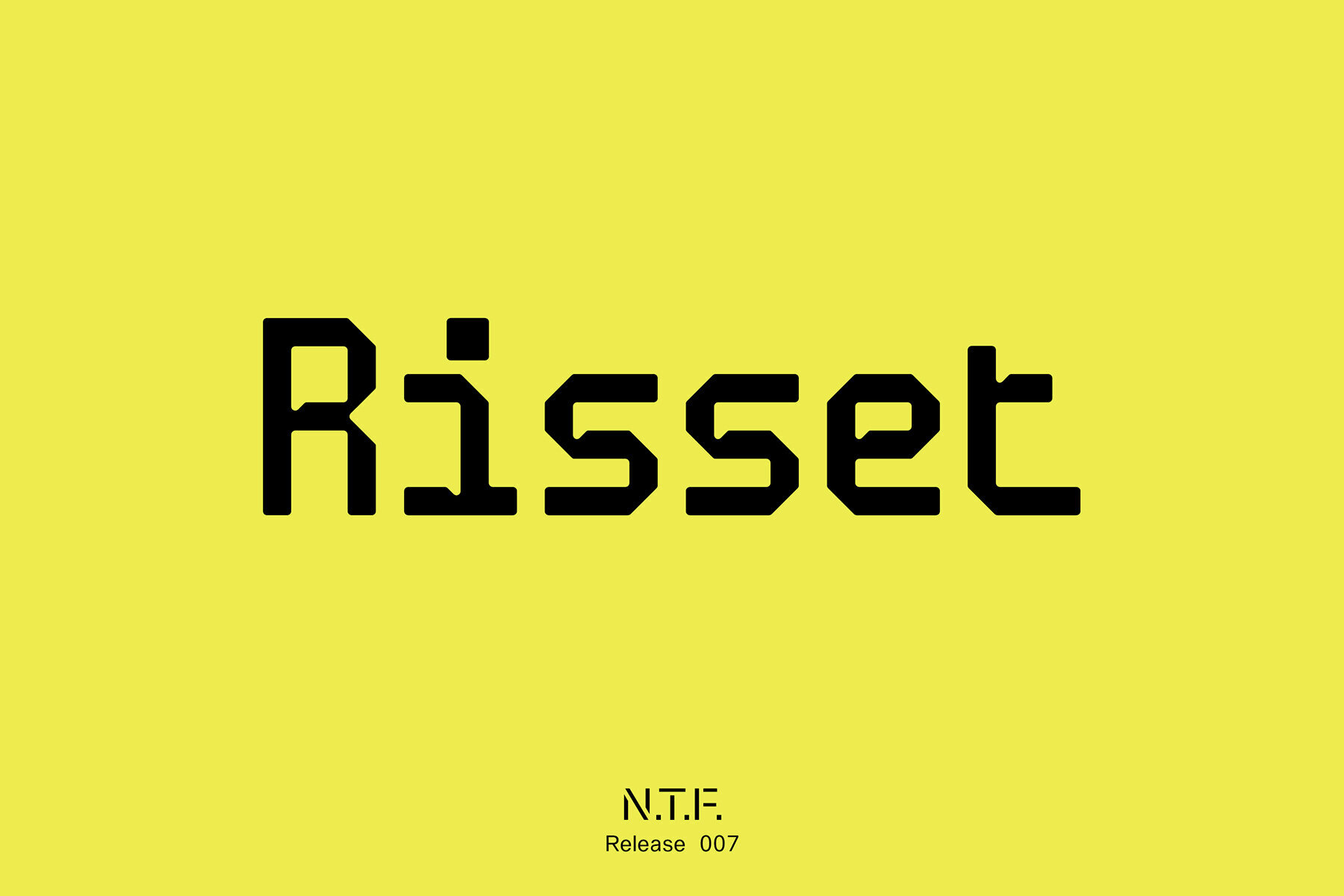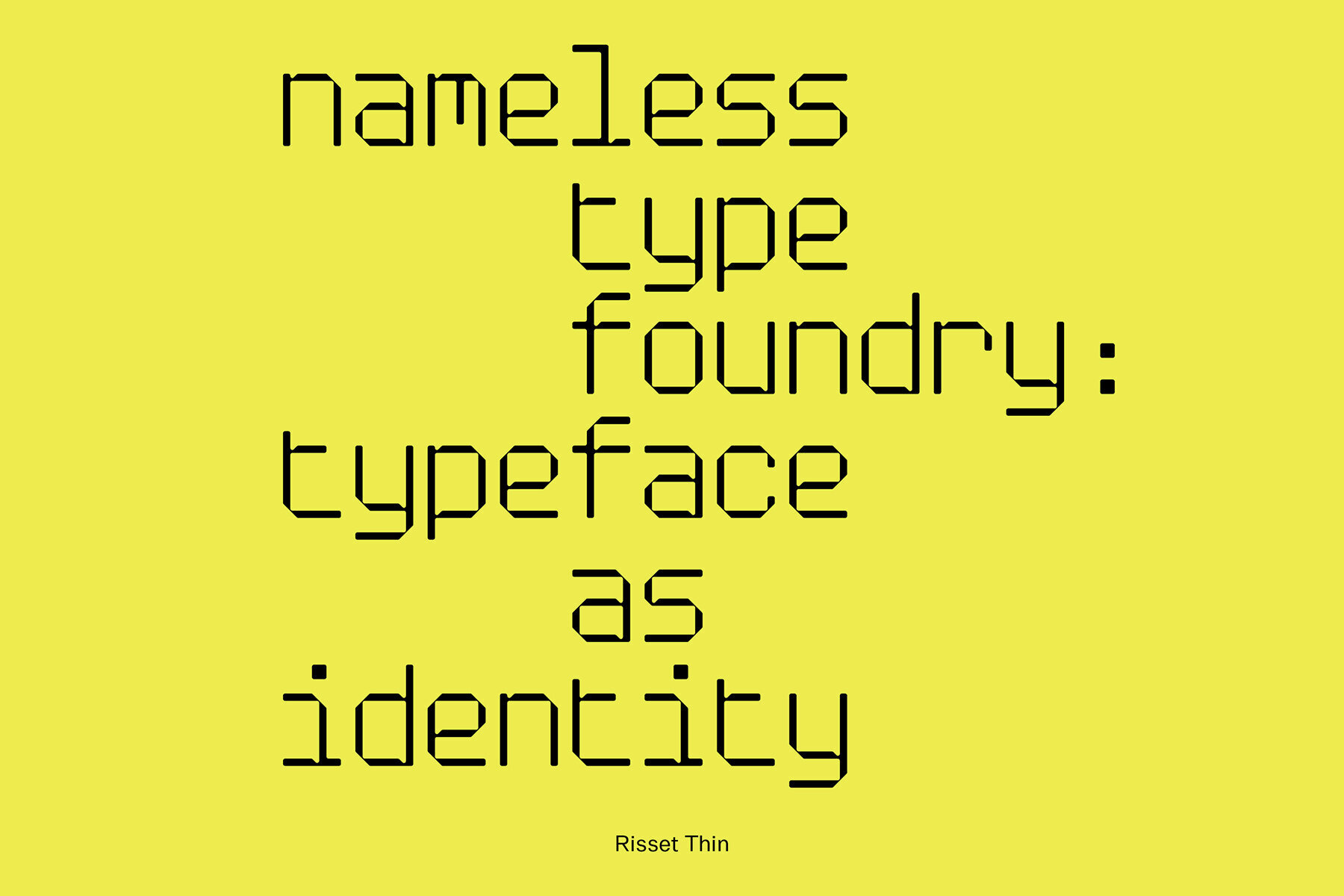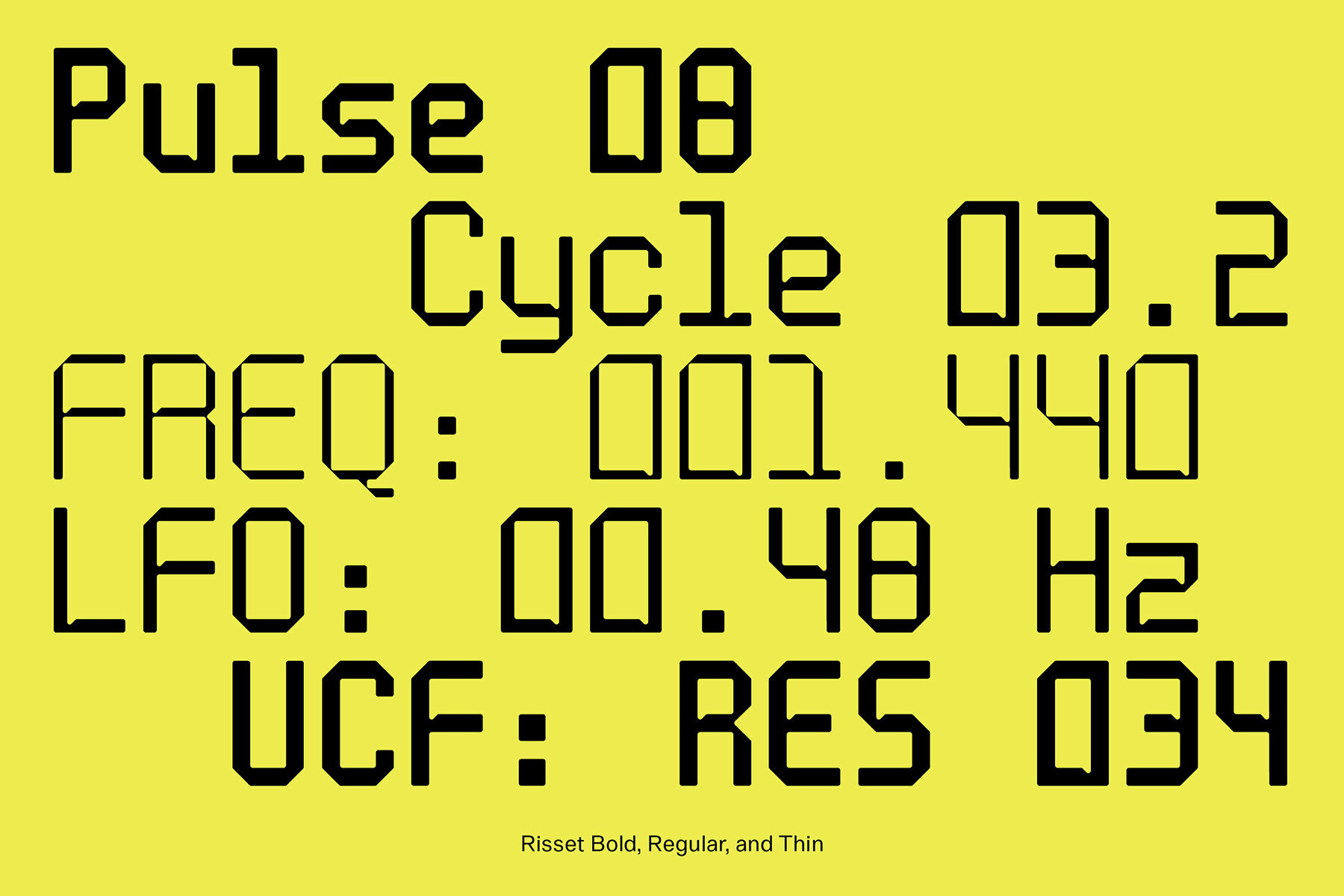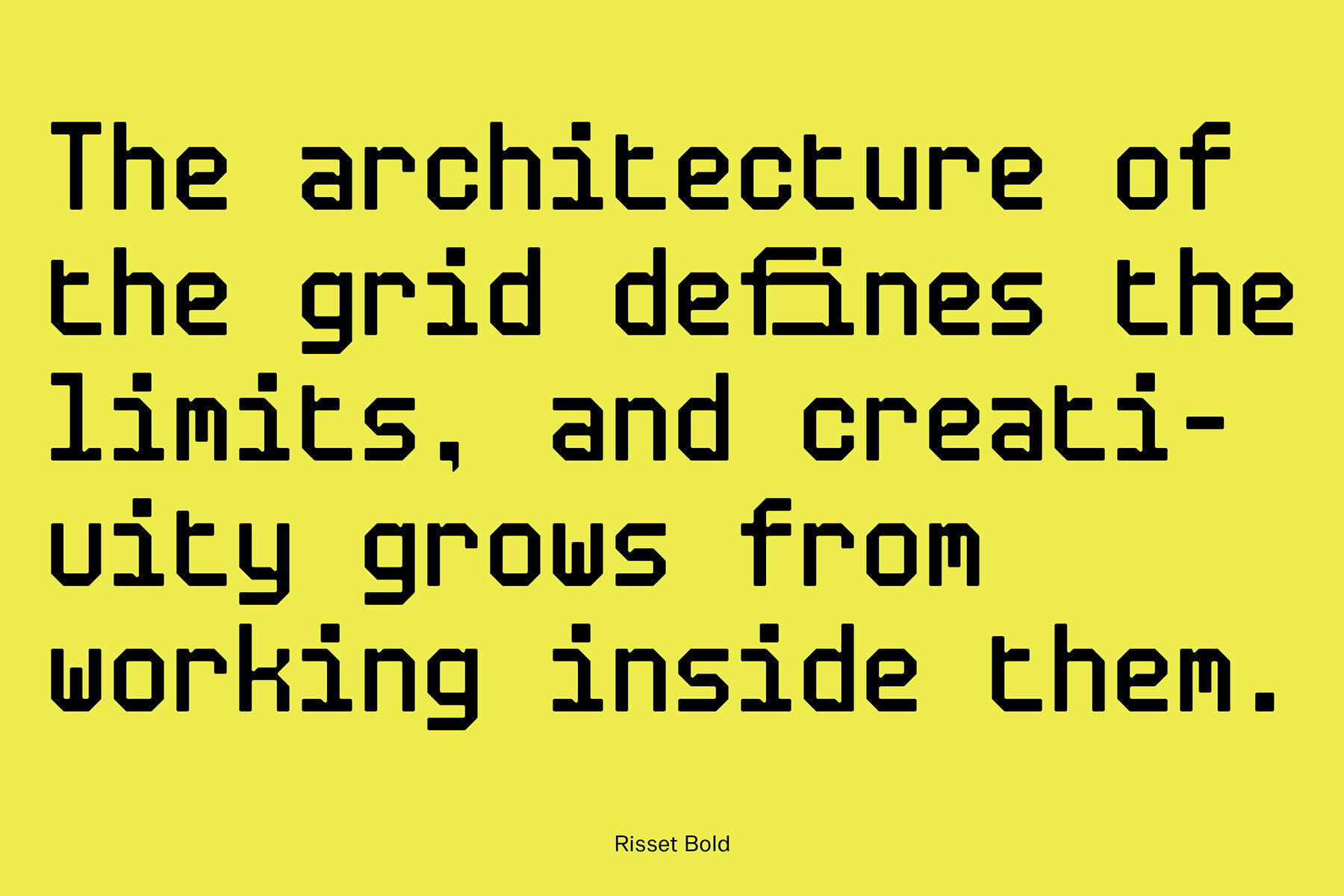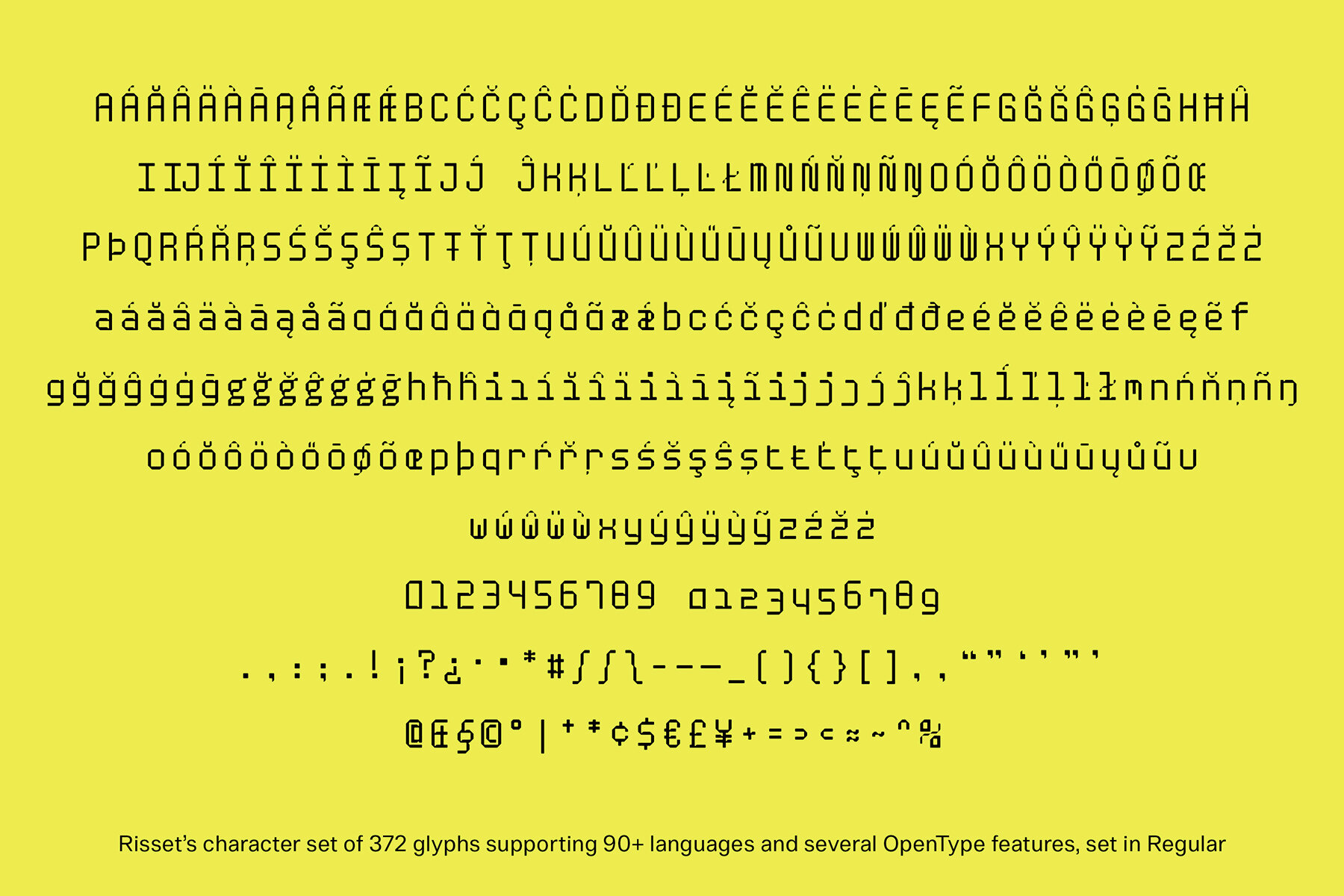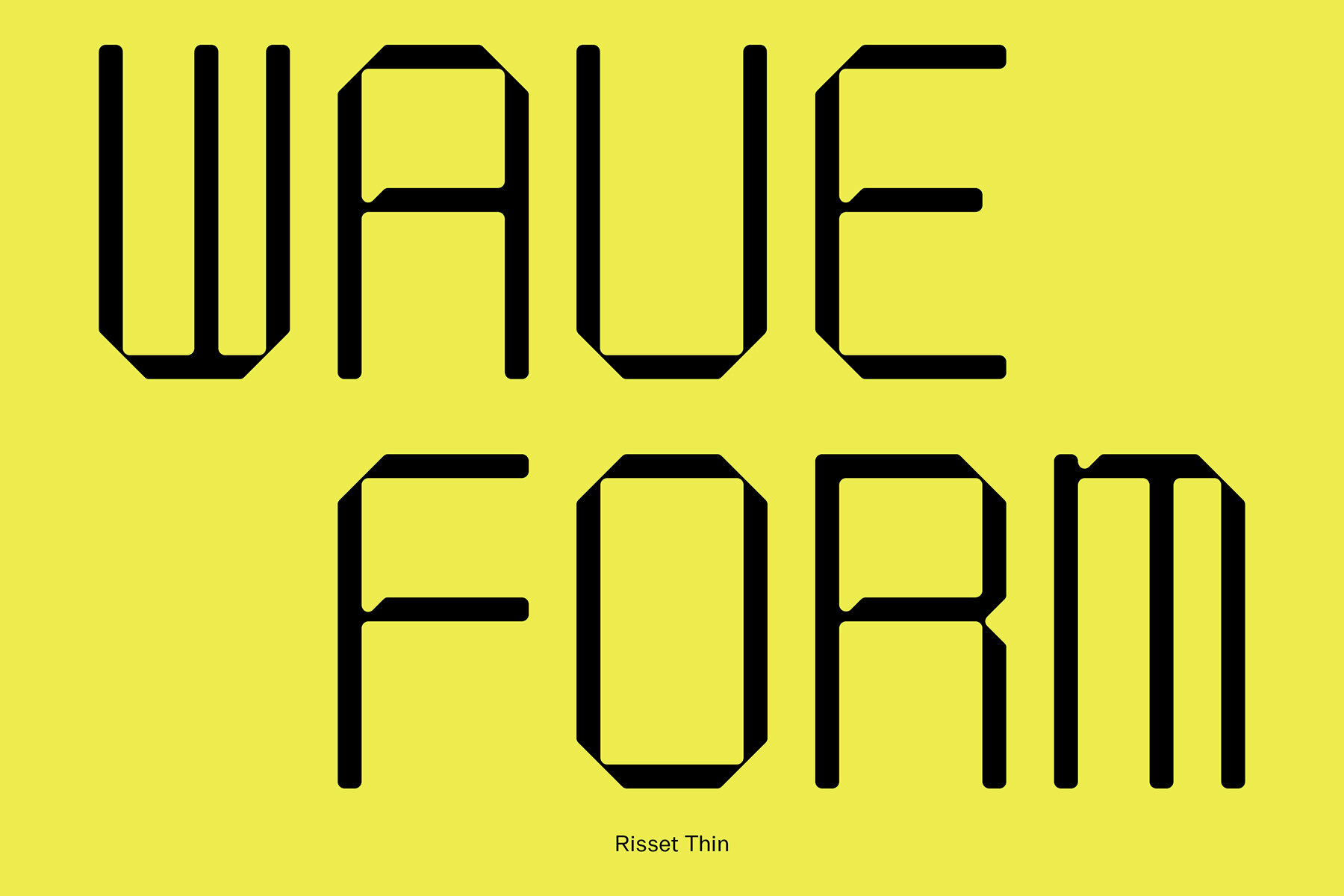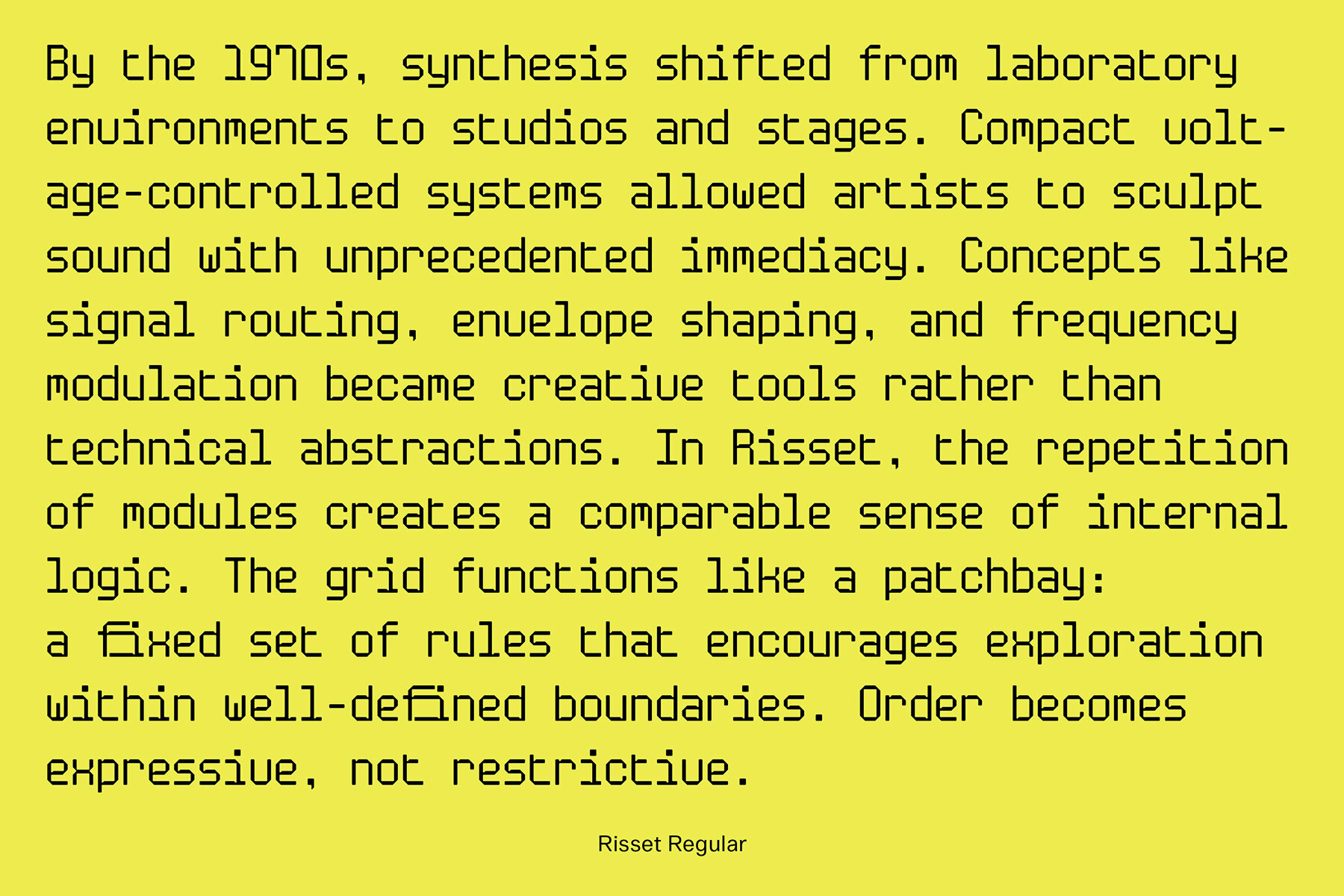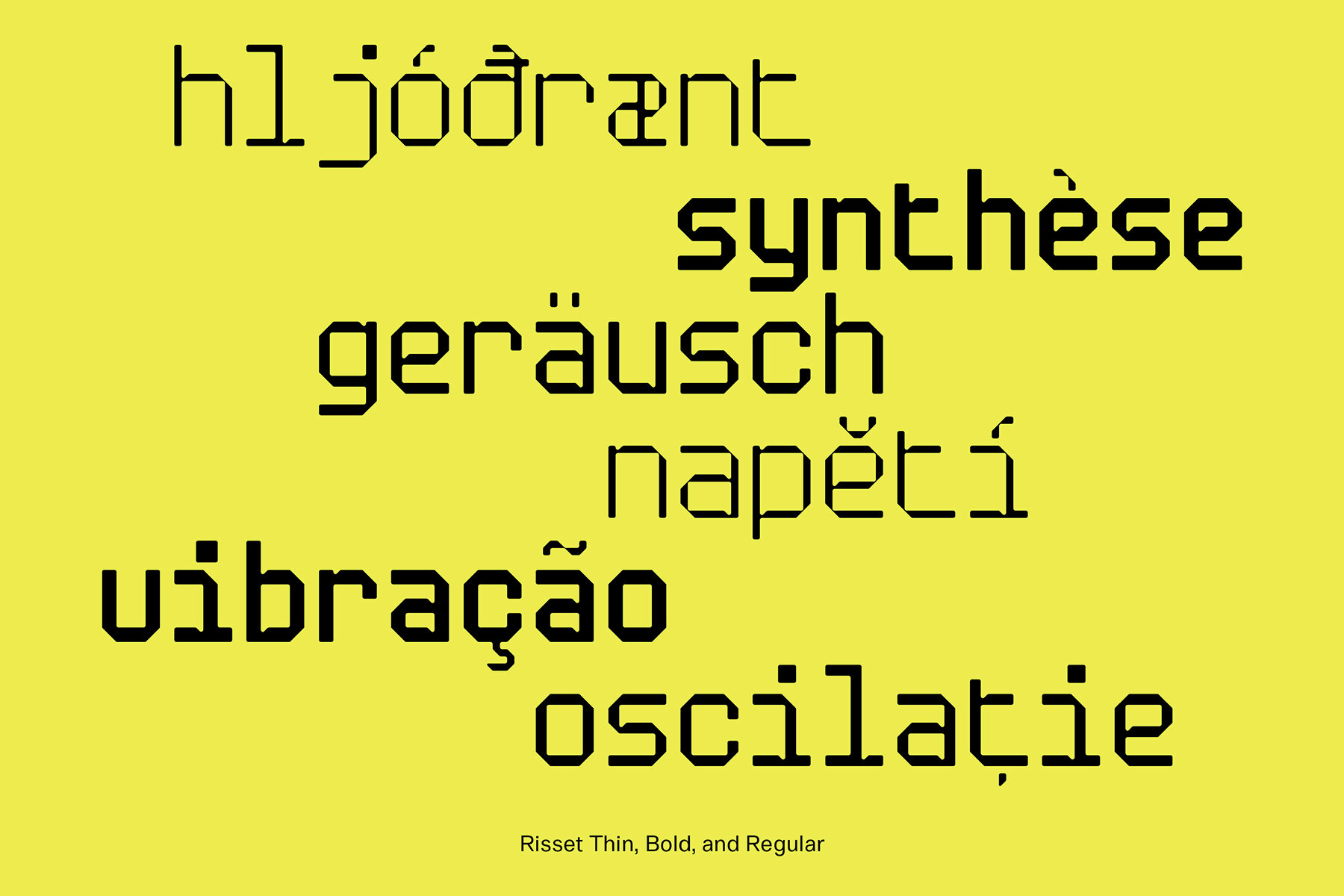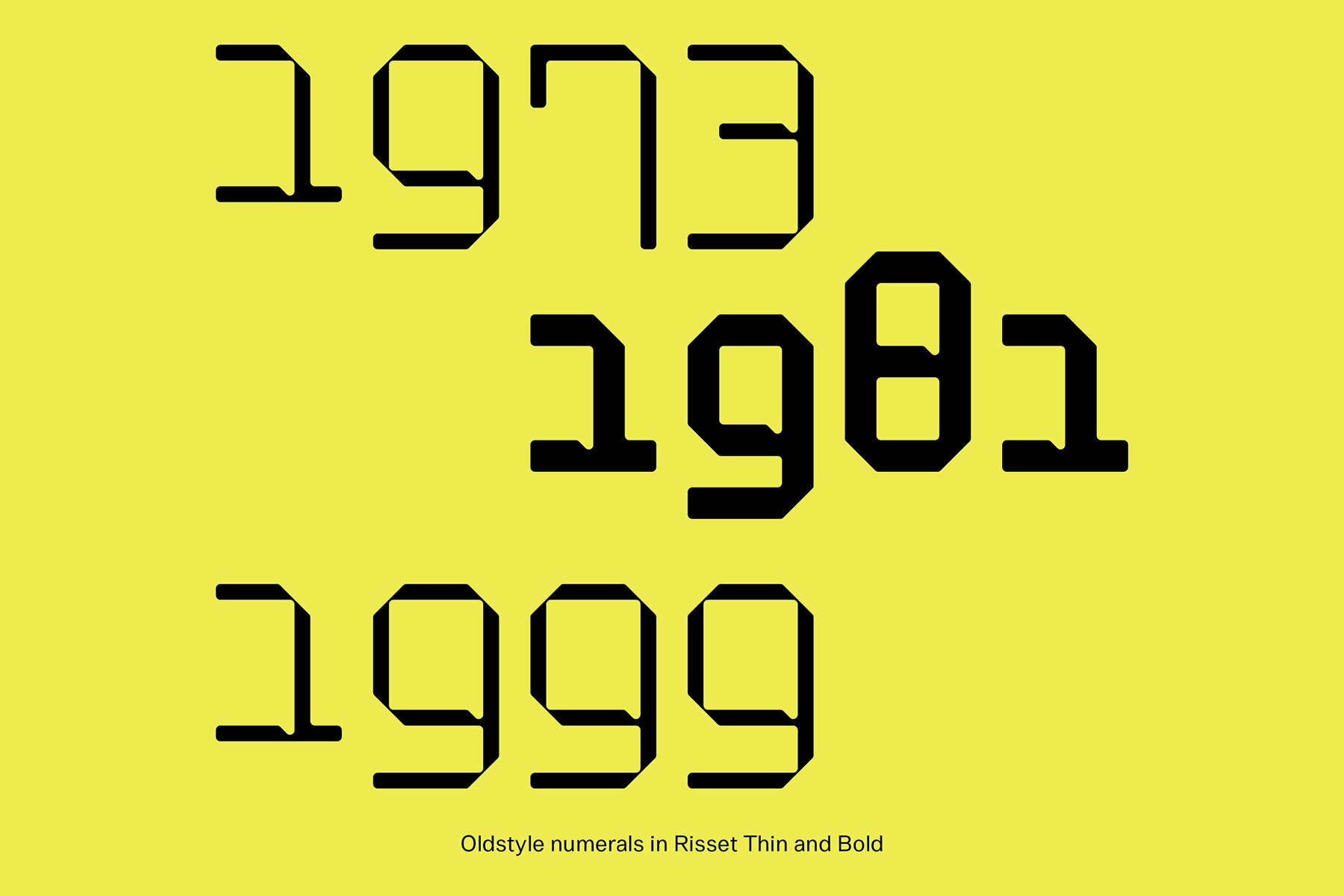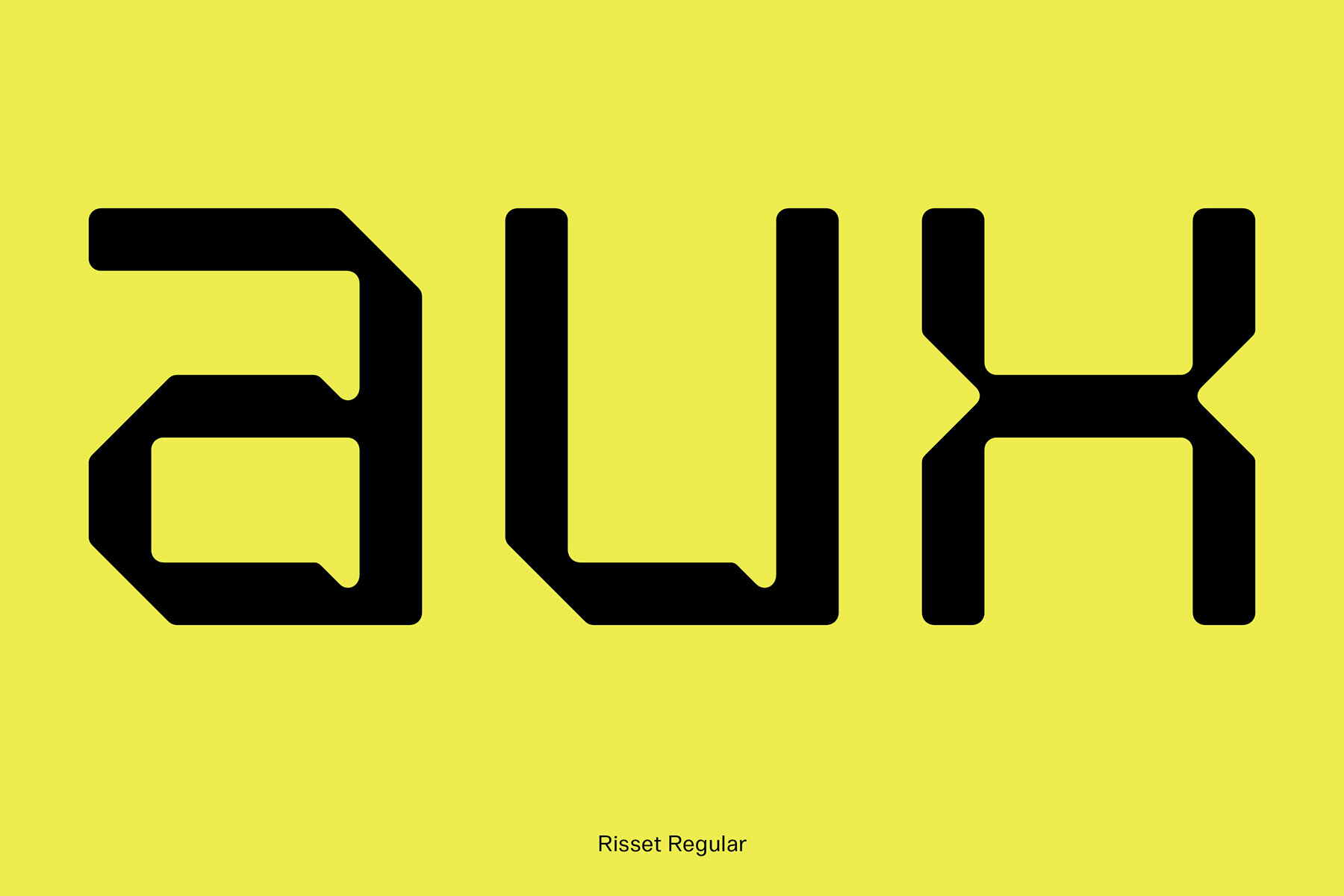
Risset Font
Risset presents a monowidth typeface designed with precision, adhering to a strict grid that defines every letterform. This modular approach draws from the lineage of synthesizer design, where minimal inputs and methodical adjustments yield unexpected complexity. In Risset, a minimal set of construction rules and unwavering spacing create a stable, uniform rhythm ideal for projects demanding typographic regularity and orderly structure. Each glyph is shaped by consistent proportions and detailed attention to horizontal alignment, resulting in lines of text that read as both systematic output and written language. The typeface’s discipline in grid and form mirrors the systematic methodologies found in early electronic instruments—consistent foundations give rise to notable variety, with each character’s clarity reinforcing the typeface’s coherent voice.Risset: Modular Monowidth Typeface Inspired by Synthesizer Logic